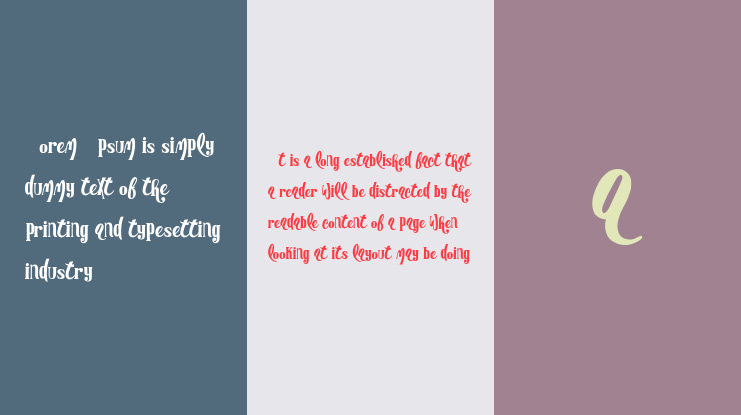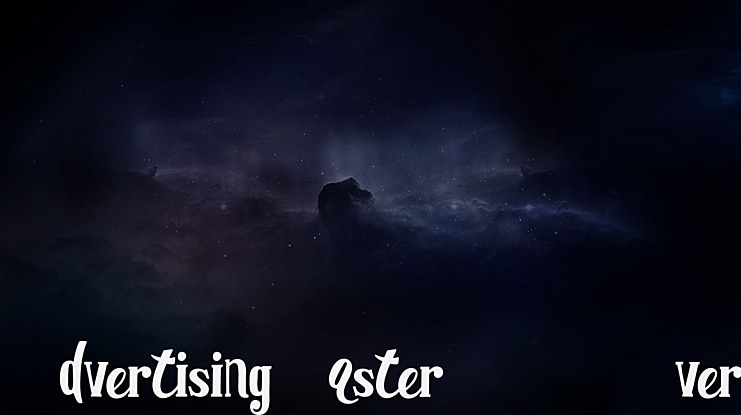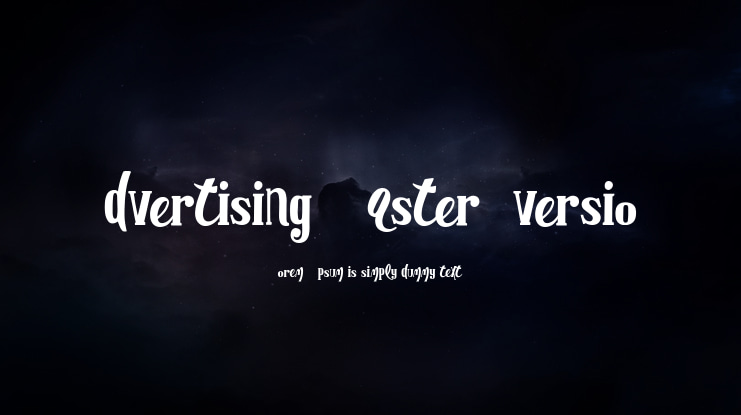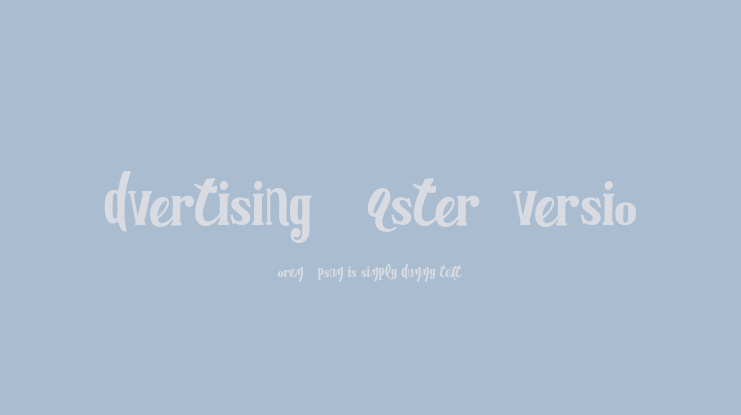
Advertising Master versio Font
We surfed and looked beyond the common rules of fonts to find and create a new dimension, a new atmosphere, where different styles play together to create new emotional feelings of curiosity and playfulness that may solicit the ATTENTION and the CURIOSITY to your final audience for whom your graphics,advertising ads or posters are designed to be.
A mix of styles for this fun and a bit eccentric font which comes in the full version with a big set of 72 alternates and 53 ligatures able to creates, with its unique, unusual and unpredictable nature, a slightly provoking feeling which brings involvement to your piece of art. Check the FULL version available here https://fontscafe.com/font/advertising-master